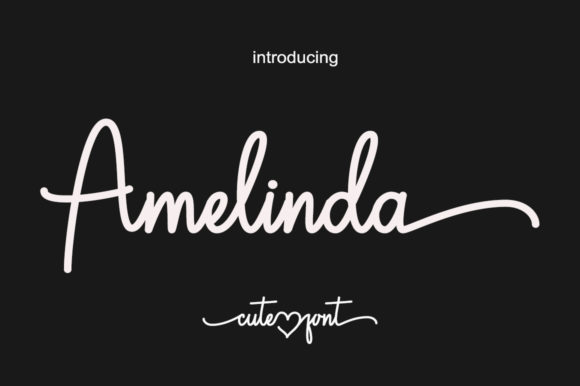
The Quest for the Perfect Font: Discovering Amelinda
I still remember the design project that led me to Amelinda. I was working on a wedding invitation suite, and my client had a very specific vision: elegant, modern, and delicate. I spent hours scouring font websites, but nothing seemed quite right. That was until I stumbled upon Amelinda, a beautiful script font that exceeded my expectations. In this article, I’ll share my experience with Amelinda, its features, and how to make the most of this stunning font.
First Impressions: A Review of Amelinda
Amelinda is a true gem in the world of script fonts. Here’s what I love about it:
- ✨ Elegant and modern design: Amelinda has a classy, sophisticated look that’s perfect for logos, branding, invitations, and more.
- ✅ PUA encoded: This means you can easily access all the glyphs and swashes, making it a breeze to customize your designs.
- 💫 Versatile: Use Amelinda for social media posts, stationery, wedding designs, and any other project that requires a touch of elegance.
While Amelinda is an excellent font, it’s not without its quirks:
- 🤔 Limited use in body text: Due to its script nature, Amelinda is best suited for headlines, titles, or short paragraphs. For longer texts, consider pairing it with a complementary font.
- ⚠️ Requires some practice to master: Amelinda’s beauty lies in its swashes and glyphs, but these can take some time to get used to. Don’t be discouraged if it takes a few tries to create stunning designs.
The Story Behind Amelinda
Amelinda was designed with elegance and versatility in mind. Its creator aimed to craft a font that would be perfect for a variety of design projects, from wedding invitations to luxury branding. With its PUA encoding and extensive glyph library, Amelinda has become a favorite among designers and crafters.
| Is Amelinda suitable for body text? | No, Amelinda is best used for headlines, titles, or short paragraphs due to its script nature. |
| Is Amelinda available in different weights or styles? | Currently, Amelinda is available in a single weight, but its versatility and glyph library make it suitable for various design applications. |